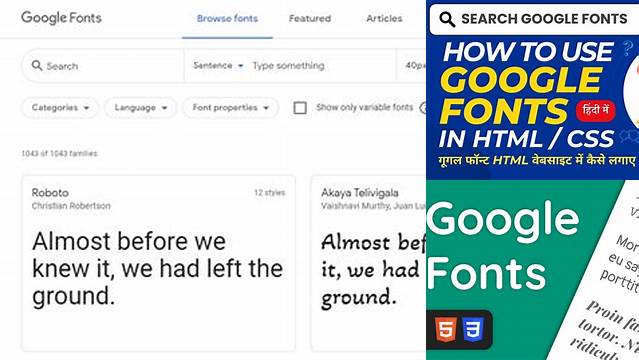
Google Fonts In HTML: A Simple Guide
Hey guys! Ever wanted to spice up your website with some cool fonts but didn't know where to start? Well, you're in the right place! Today, we're diving into the world of Google Fonts and how you can easily use them in your HTML projects. Trust me, it's easier than you think!
What are Google Fonts?
Google Fonts is a fantastic library of free and open-source fonts that you can use on your website. It's like a giant candy store for typography, offering a wide variety of styles to suit any project. From elegant serifs to modern sans-serifs, Google Fonts has something for everyone. The best part? It's super easy to integrate them into your HTML.
Why Use Google Fonts?
- Easy to Use: Simple integration with HTML.
- Variety: A vast collection of fonts to choose from.
- Performance: Google's servers are optimized for fast loading.
- Cross-Browser Compatibility: Works seamlessly across different browsers.
Step-by-Step Guide to Using Google Fonts in HTML
Alright, let's get down to business! Here's a step-by-step guide on how to use Google Fonts in your HTML:
1. Choose Your Font
First things first, head over to the Google Fonts website. Browse through the font library and find the one that tickles your fancy. You can use the filters to narrow down your options based on categories, font properties, and languages.
2. Select the Styles
Once you've found a font you like, click on it to view its available styles (e.g., Regular, Italic, Bold). Choose the styles you want to use on your website. Keep in mind that the more styles you select, the larger the font file, which can impact your website's loading time. So, try to stick to only the ones you really need.
3. Embed the Font in Your HTML
Google Fonts provides two ways to embed the font in your HTML:
Using the <link> tag: This is the most common and recommended method. Google Fonts will give you a <link> tag that you need to add to the <head> section of your HTML file. It looks something like this:
Your+Font+Namewith the actual name of your font, and adjust thewghtparameter to include the font weights you selected. Make sure that you include<link>tag inside the<head>tag. -
Using the @import rule in CSS: You can also import the font directly into your CSS file using the
Your+Font+Namewith the actual name of your font and adjust thewghtparameter accordingly. Using the @import rule is less performant than using<link>, as it can block parallel downloads. Prefer<link>.
4. Apply the Font in Your CSS
Now that you've embedded the font, it's time to apply it to your HTML elements using CSS. Use the font-family property to specify the font for the desired elements. The font-family property allows you to set the font for the text content of an HTML element. Here’s how you can do it:
Replace 'Your Font Name' with the actual name of the font you chose. The sans-serif and serif are fallback fonts that will be used if the browser can't load the Google Font. It's always a good practice to have fallback fonts, in case the Google Fonts service is temporarily unavailable.
30 Subheadings Expanding on Google Fonts in HTML
1. Integrating Google Fonts with HTML: A Comprehensive Guide
Integrating Google Fonts with HTML is a straightforward process that can significantly enhance the visual appeal of your website. The first step involves selecting the desired font from the Google Fonts library. Once you've identified the perfect typeface, you can choose the specific styles and weights you need, such as regular, italic, bold, and more. Google Fonts provides two primary methods for embedding the selected font into your HTML document: using the <link> tag or using the @import rule in your CSS file. The <link> tag is generally recommended as it allows the browser to download the font in parallel with other resources, improving page load times. To use the <link> tag, simply copy the provided code snippet from Google Fonts and paste it into the <head> section of your HTML file. Alternatively, you can use the @import rule by adding the provided code snippet to the beginning of your CSS file. After embedding the font, you can apply it to your HTML elements using the font-family property in your CSS. For example, to apply the font to all paragraphs on your page, you would use the following CSS rule: p { font-family: 'Your Font Name', sans-serif; }. Remember to replace 'Your Font Name' with the actual name of the font you selected. By following these steps, you can easily integrate Google Fonts into your HTML projects and create visually stunning websites. When choosing fonts, remember that readability is paramount. Select fonts that are easy to read on screens and that complement your website's overall design.
2. Choosing the Right Google Font for Your Website
Selecting the right Google Font for your website is a critical decision that can greatly impact the user experience and overall design aesthetic. The choice of font should align with the tone and purpose of your website, as well as its target audience. For example, a professional website might benefit from a clean and modern sans-serif font, while a creative blog might opt for a more decorative or unique typeface. Google Fonts offers a vast library of fonts, making it essential to narrow down your options. Consider factors such as readability, legibility, and the overall visual hierarchy of your website. Readability refers to how easy it is to read the text, while legibility refers to how easy it is to distinguish individual characters. A font with good readability and legibility will ensure that your content is accessible and engaging for your visitors. Additionally, think about the font pairings. Some fonts work well together, while others clash. Google Fonts often provides suggestions for popular font pairings to help you make informed decisions. Experiment with different fonts and styles to see what works best for your website's design. Ultimately, the right Google Font will enhance your website's visual appeal and contribute to a positive user experience. Remember, the goal is to create a website that is both visually appealing and easy to use.
7. Optimizing Google Fonts for Website Performance
Optimizing Google Fonts for website performance is crucial for ensuring a fast and smooth user experience. Large font files can significantly impact page load times, so it's important to minimize their size. One way to optimize Google Fonts is to only select the font weights and styles that you actually need. Avoid including unnecessary weights or styles, as they will increase the font file size. Another optimization technique is to use the font-display property in your CSS. This property allows you to control how the browser handles font loading. The font-display: swap; value is often recommended, as it tells the browser to display the text using a fallback font while the Google Font is loading, and then swap to the Google Font once it's available. This prevents the dreaded